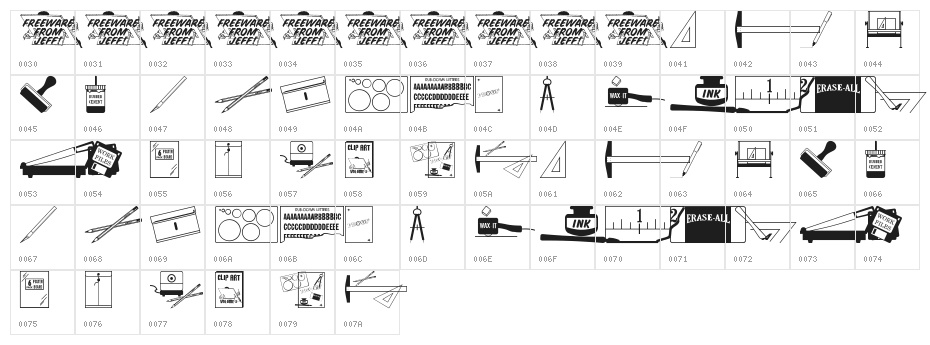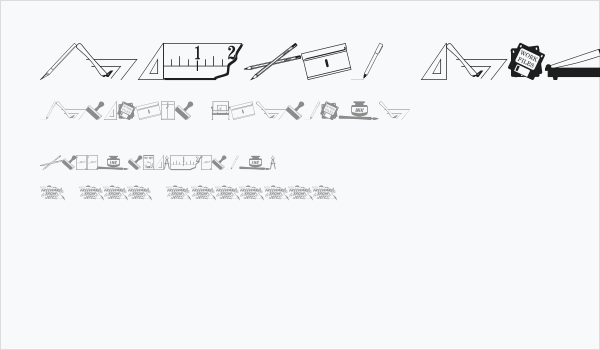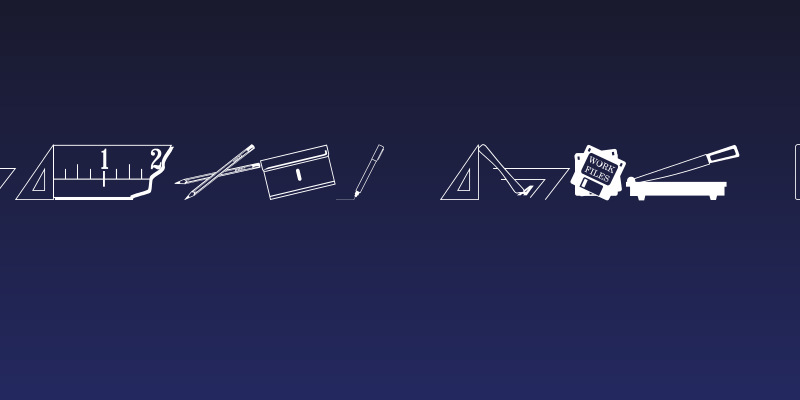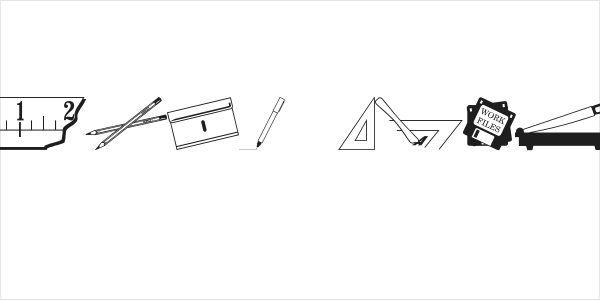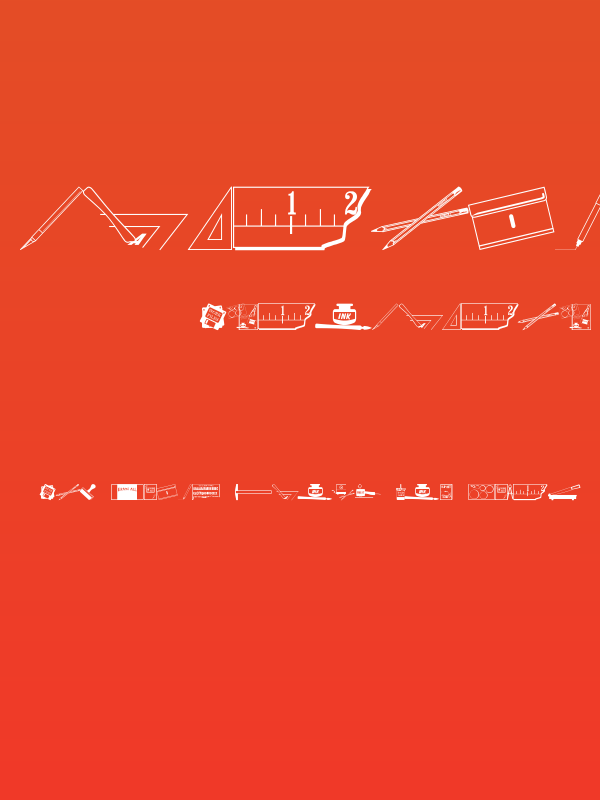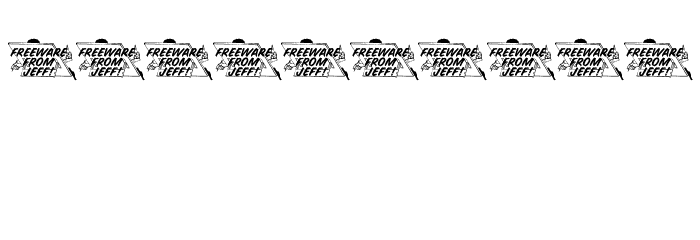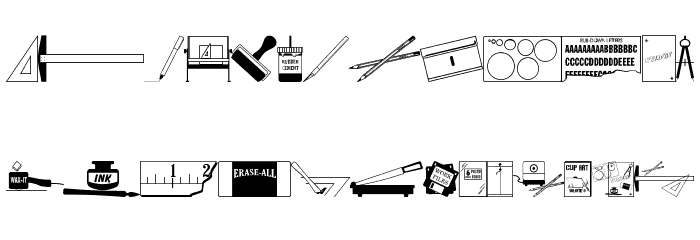
Graphic Arts JL Font
This font is a unique collection of graphic arts symbols, each representing a different tool or concept related to graphic design and drafting. The characters are not traditional letters or numbers but rather a series of icons that include rulers, compasses, ink bottles, and other drafting tools. The style is highly illustrative and detailed, making it more of a decorative or thematic set rather than a functional typeface for text. Each symbol is distinct and intricately designed, providing a playful yet professional aesthetic that could be used in creative projects related to art, design, or education.
| Use Case | Logos, Posters, Educational Materials |
| Proposed Projects | Ideal for educational materials, graphic design projects, art-themed posters, or any creative work that requires a visual representation of graphic arts tools. |